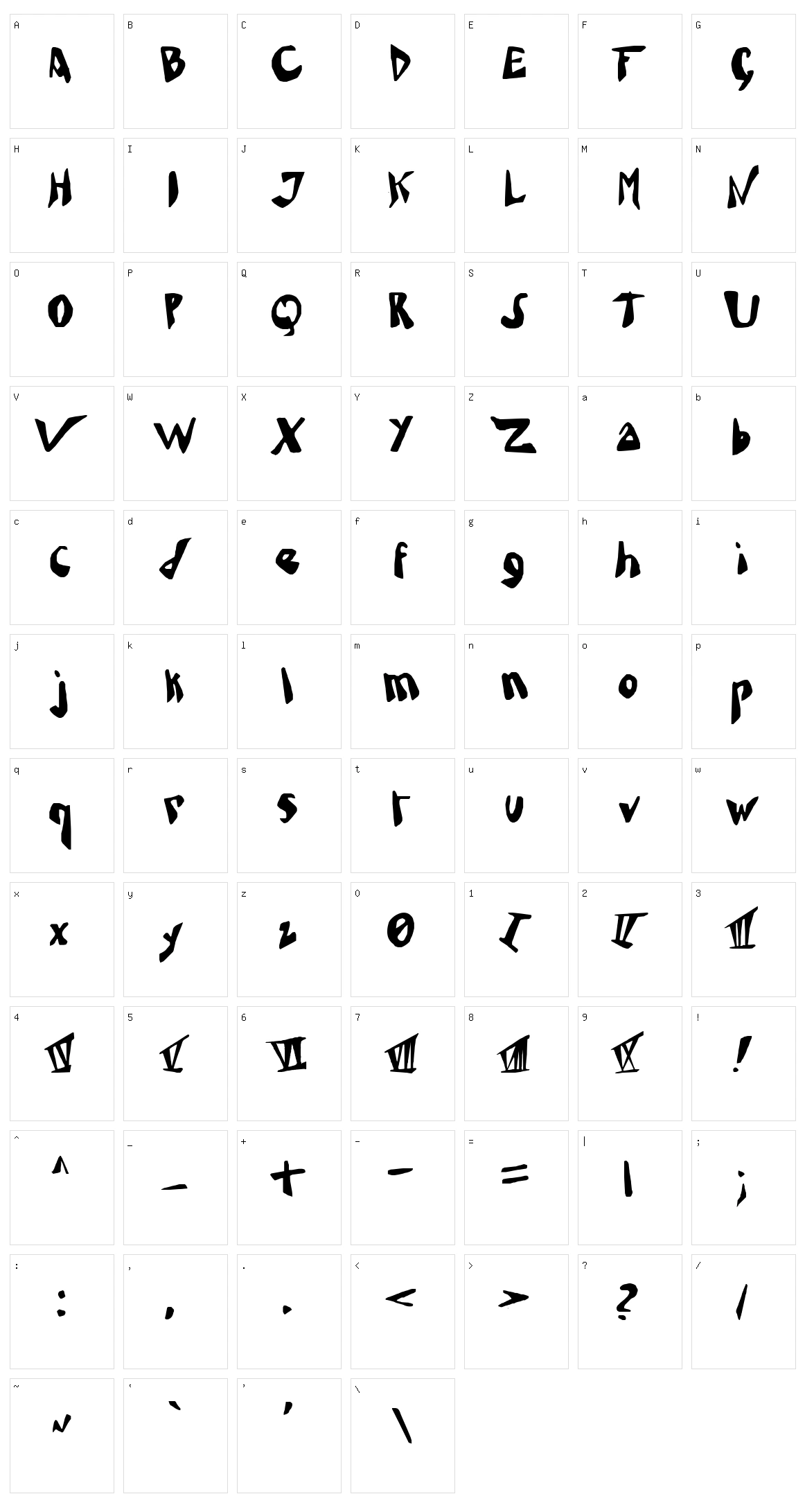
The free font Mad Somnambulist is carefully designed by Joseph M. Pence, showcasing a thoughtful balance of creativity and usability and falls under the Distorted font style. When you download the ZIP file, it contains only 46.49 KB of font files, making it lightweight and quick to download. Please review the license details below to understand permitted usage and distribution rights. If license information is not available, we recommend using this font for personal projects only or contacting the author directly for commercial usage permissions.